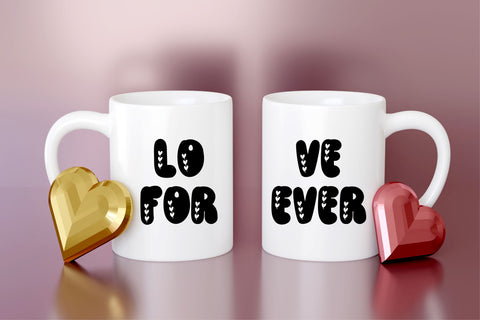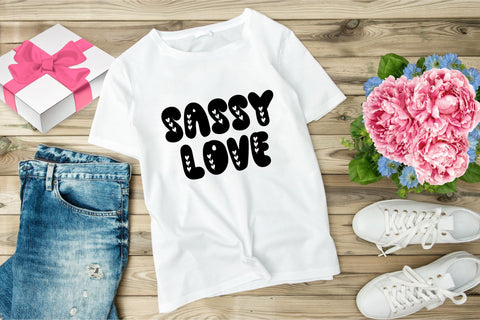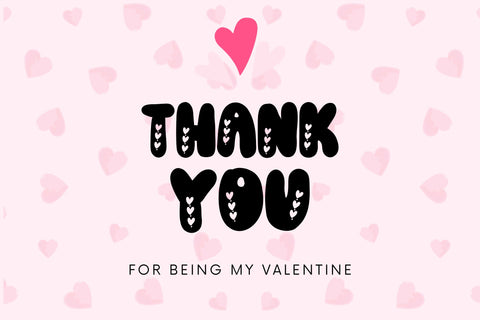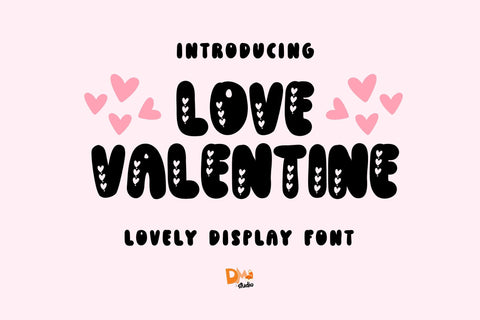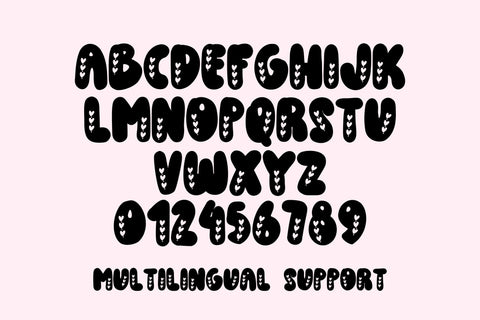
Love Valentine Font
Love Valentine Font is a romantic and elegant typeface that embodies the charm and warmth of Valentine’s Day. With its graceful curves and heart-inspired details, this font is perfect for all things love-related – from wedding invitations and greeting cards to social media posts and personal projects. Designed to bring a sense of passion and sweetness, Love Valentine Font is ideal for anyone looking to add a romantic touch to their designs.
- Romantic and Elegant Design: Beautifully crafted with soft curves and heart-inspired elements.
- Perfect for Love-Themed Projects: Great for Valentine’s Day cards, wedding invitations, love letters, branding, and more.
- Versatile Usage: Suitable for print and digital projects, such as social media graphics, posters, and custom merchandise.
- Uppercase and Lowercase Letters: Provides flexibility and creative options.
- Punctuation and Symbols: Complete character set for versatile use.